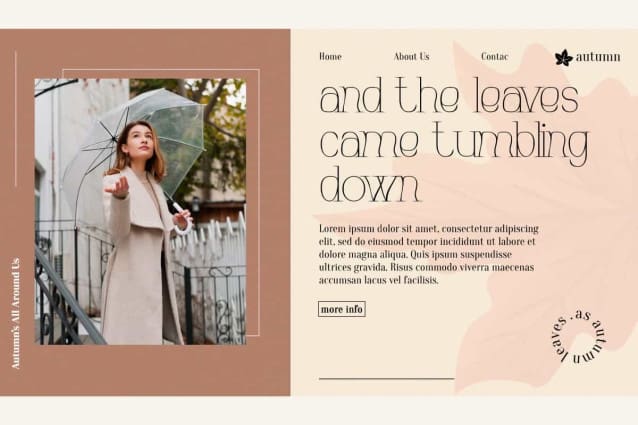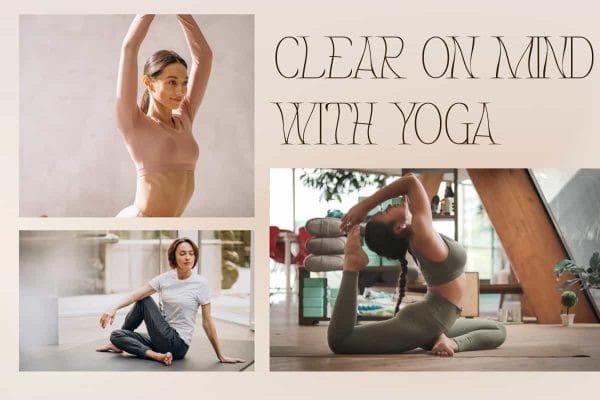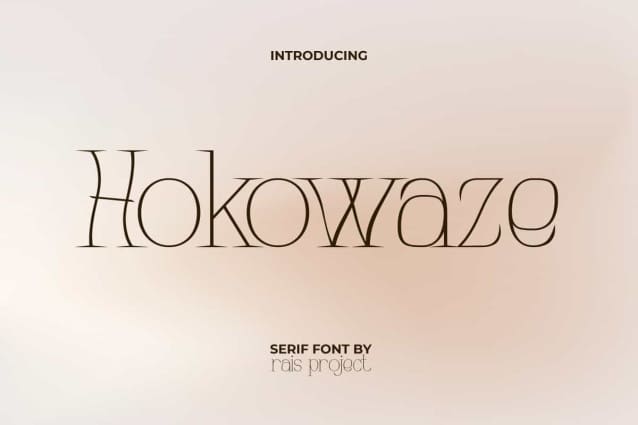
Hokowaze Font
Hokowaze Font is a unique sleek and stylish serif display font, actually inspired from typewriter texts but in slim way. The lines on this font may look thin, but the wavy shape makes it look wider and stylish at the same time. It will be good for any designs, such as brand image, cover, custom design, flyer, invitation, label, magazine, marketing material, menu, poster, product packaging, quotes, signage, stationery, website page, and more!
Hokowaze Font including a complete set of Uppercase and Lowercase basic characters, Numerals, and large range of Punctuation. This font also suitable for various industries, such as advertising, beauty product, cafeteria, fashion, home furniture, marketing, photography, printing, publishing, spa and salon, wedding organizer, etc.